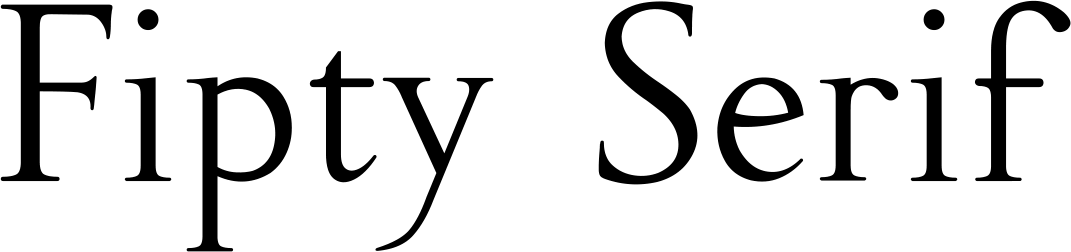
Fipty Serif Font
If sophistication and professionalism are what you are looking for in your content, then you need to choose your font right. For that specific requirement, you need a serif font like Fipty Serif, and its functionality for printed text, magazine titles, fashion logos, decorative headlines, and wedding cards is amazing.
This font contains an extraordinary collection of characters containing both the uppercase and lowercase of the alphabet, numbers, and punctuation marks.